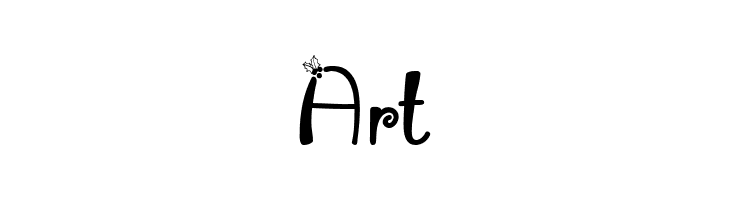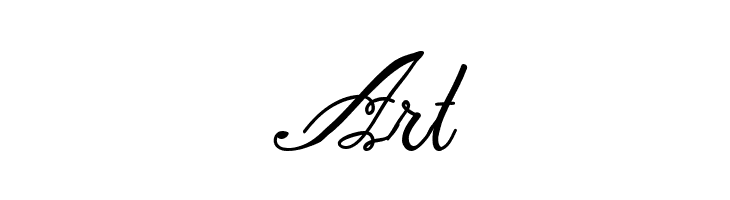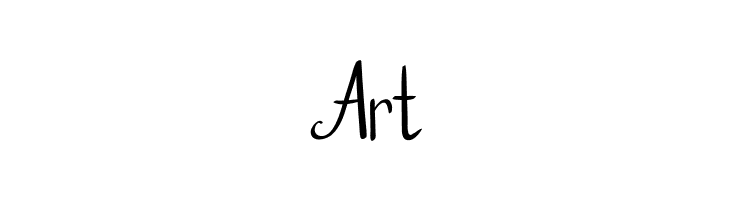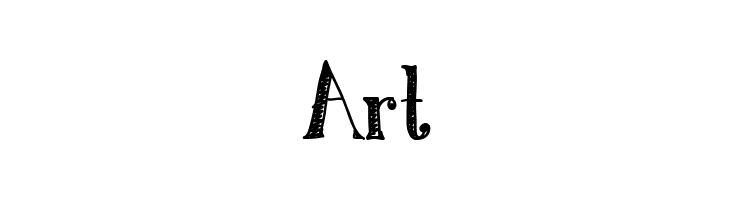
A whimsical, hand-drawn font with tall, narrow characters.
A playful, hand-drawn font with a whimsical and artistic style.
An elegant, flowing script font with ornate uppercase and smooth lowercase letters.
A playful, hand-drawn font with a whimsical and approachable style.
A playful, handwritten font with a whimsical and decorative style.
A whimsical, hand-drawn font with sketch-like details and artistic flair.
A playful and decorative font with whimsical embellishments.